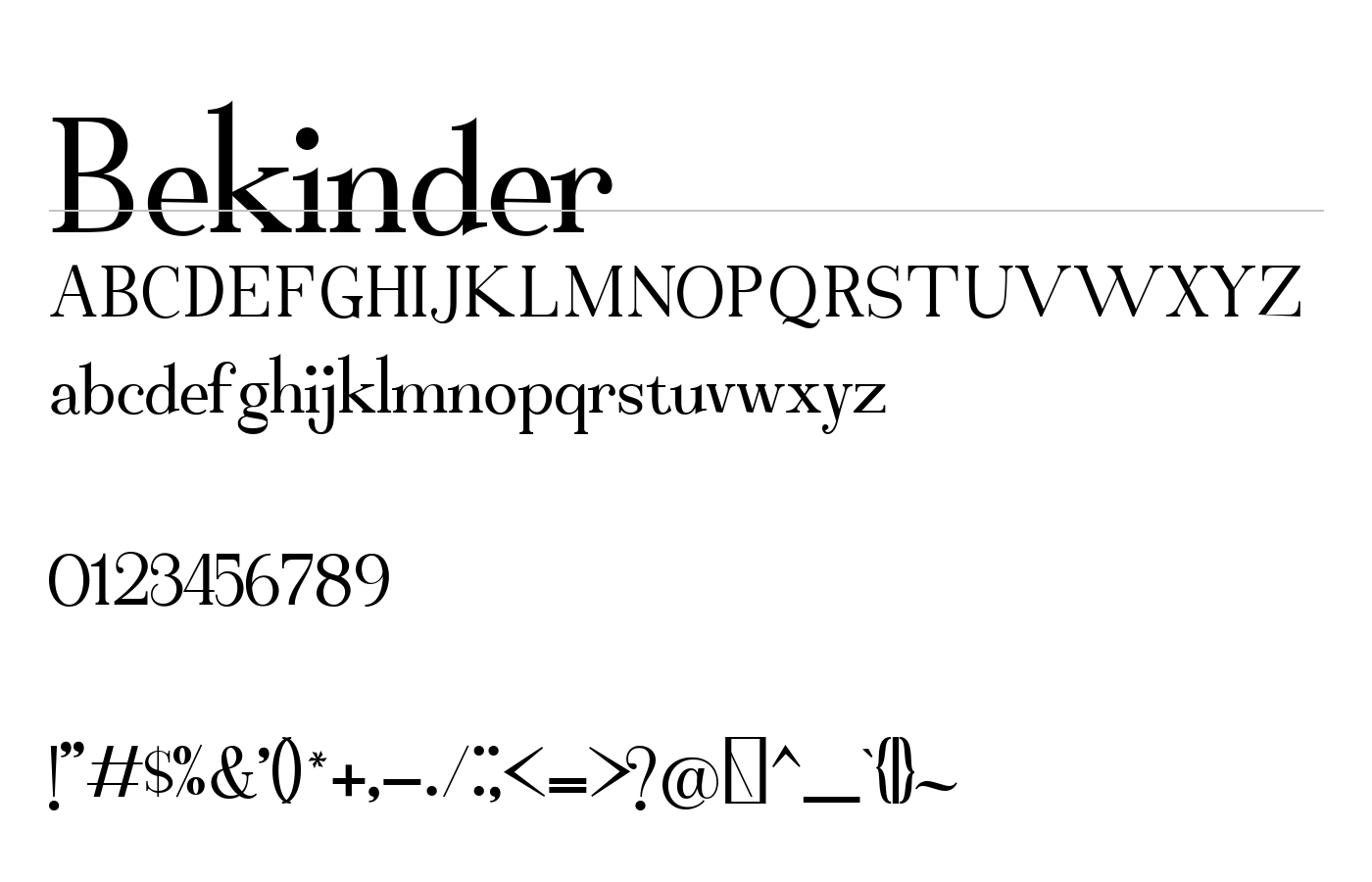
Bekinder is an elegant serif font with a high contrast between thick and thin strokes, featuring thin, bracketed serifs and a refined modern style. Its tall x-height and delicate, sharp letterforms give it a sophisticated and timeless feel, making it ideal for luxury branding, editorial headlines, and fashion-focused designs. This font’s classic charm and clear readability also make it well-suited for use in upscale packaging and stylish print projects.
Bekinder Font